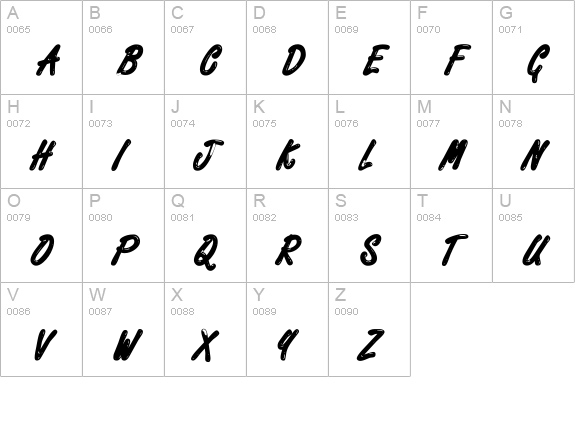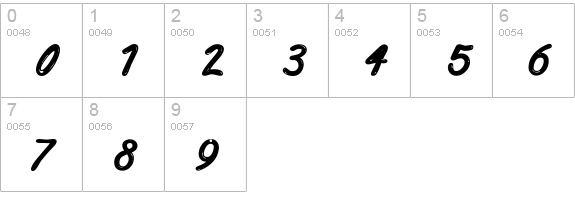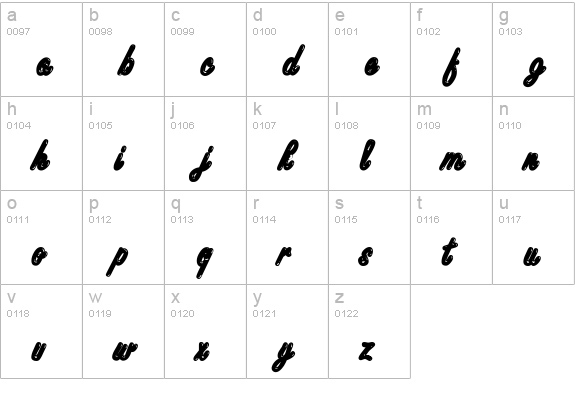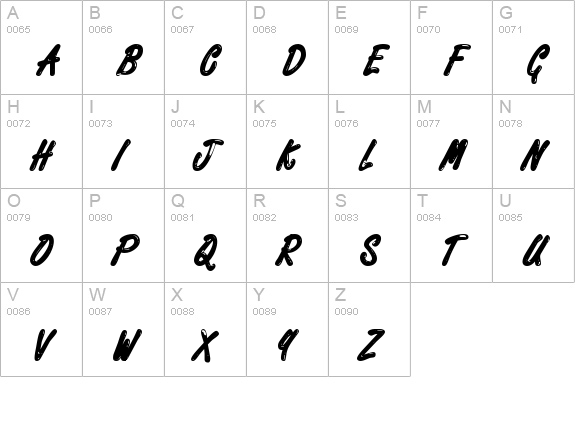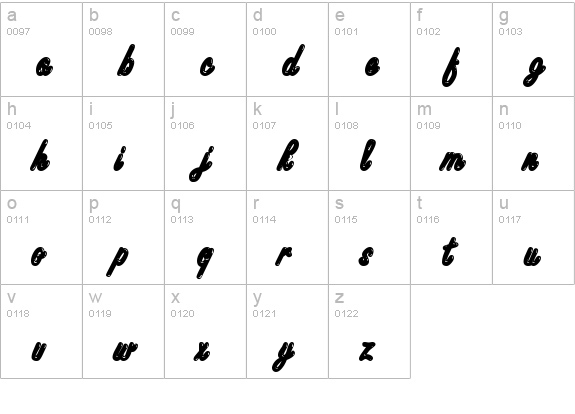
Encino Bold is a strong, high-contrast variant in the Encino typeface family \xE2\x80\x94 well suited to headlines, attention-grabbing titles, and strong calls-to-action.
Encino Bold is a modern and stylish font that exudes confidence and sophistication. Its bold and eye-catching letterforms make it perfect for headlines, titles, and other design projects that require a strong visual impact. The clean lines and unique detailing of Encino Bold give it a contemporary edge while maintaining a classic elegance. Best of all, Encino Bold is available for free download at FontsMarket.com. This means you can easily add this versatile font to your collection without any cost. Whether you're a graphic designer, a creative professional, or just looking to enhance your projects with a fresh and striking typeface, Encino Bold is a fantastic choice. Download it today and elevate your designs with this stunning font.